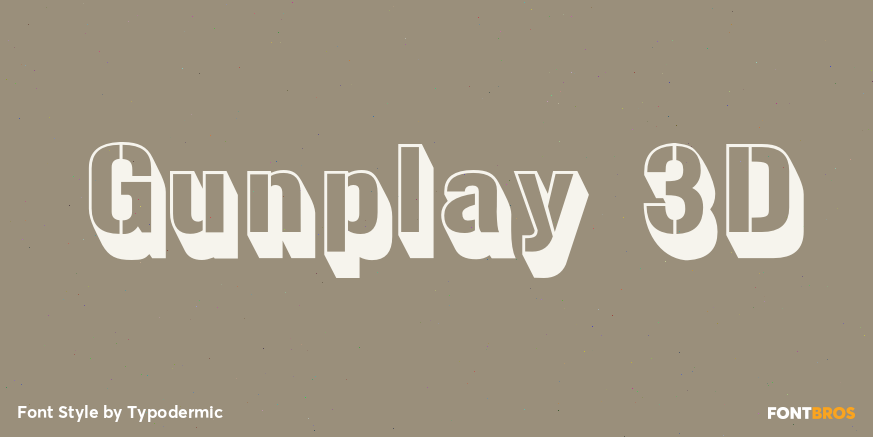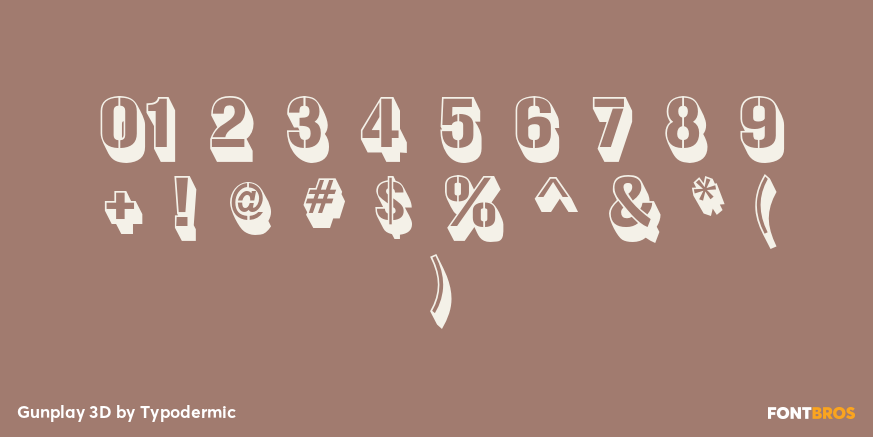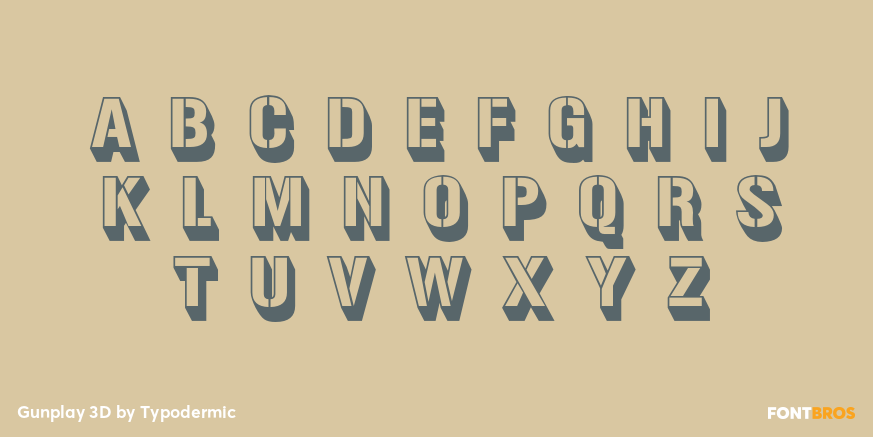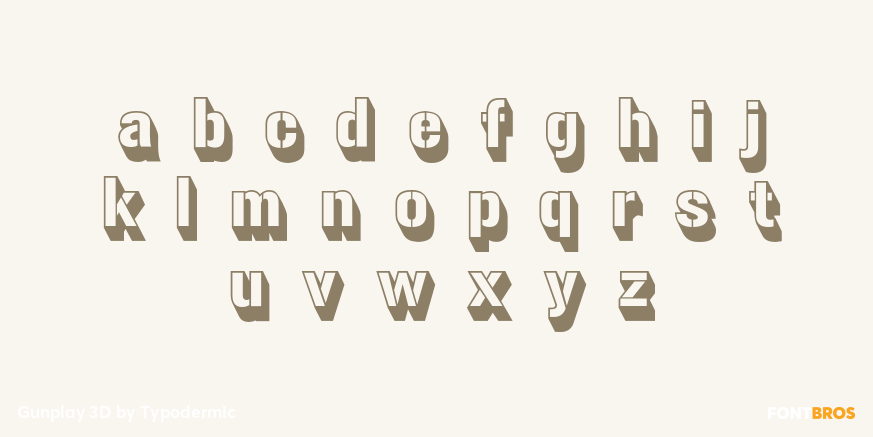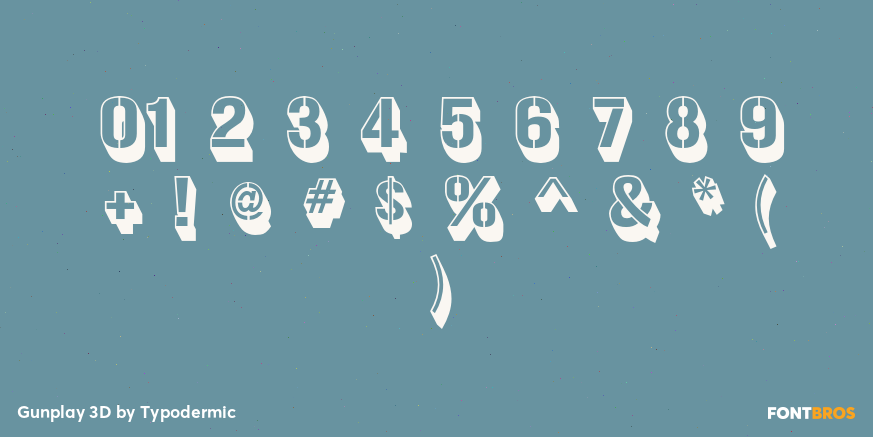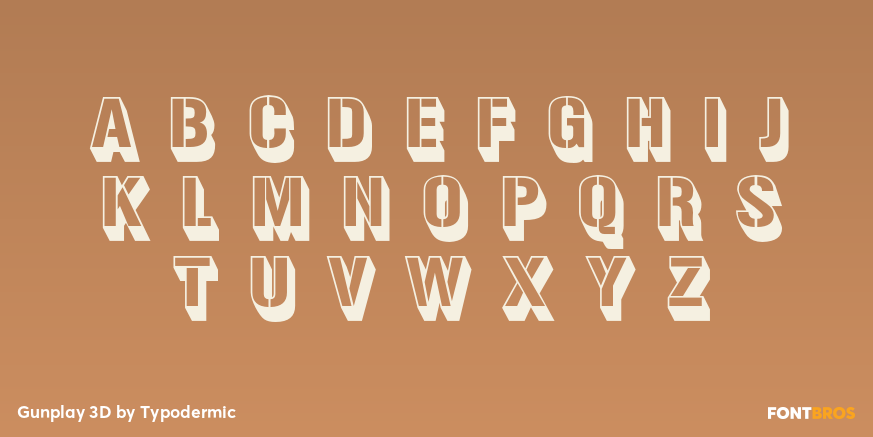
Gunplay 3D
Buy NowGunplay 3D takes Gunplay’s narrow stencil letterforms and turns them into an outlined, dimensional treatment. An open face and short down-right offset extrusion preserve the familiar stencil cuts while making each character appear solid and projected, rather than heavier, chipped, or spray-painted.
As a 3D stencil display font, it suits arcade and action-game titles, motorsport event graphics, sports promotions, album covers, packaging fronts, and retro-industrial posters. The dimensional structure gives model names and short headlines a strong graphic silhouette when a clean constructed effect is more appropriate than the physical wear of Gunplay Damage or the aerosol texture of Gunplay Spraypaint.